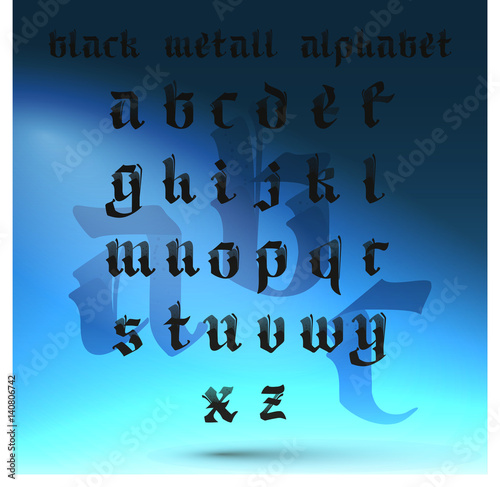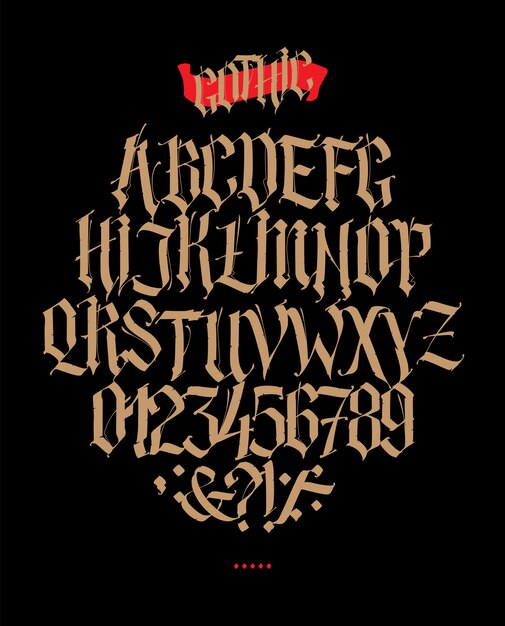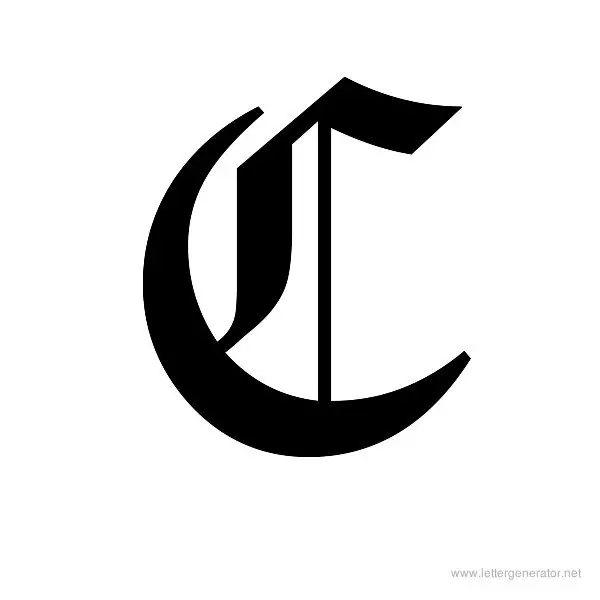
These calligraphy templates come in high resolution A4 pdf format Portable Document Format Number of calligraphy alphabets. Black letter alphabet is also known as the Gothic script or Old English script.
Calligraphy gothic font alphabet. Each image provides all the letters from A to Z. Looking for Gothic Calligraphy fonts. Blackstone Dolbey Germania Caxton Initials Munich Fraktur and 95 more with many lowercases numerals and punctuation marks.
Gothic Calligraphy Lowercase A. This impressive collection features 100 complete and royalty-free alphabets of Old English and Gothic typefaces. Gothic Calligraphy Letter Z.
And search more of iStocks library of royalty-free vector art that features Alphabet graphics available for quick and easy download. Download this Full Latin Alphabet In The Gothic Style Letters And Symbols On A Blue Background Calligraphy And Lettering Medieval Latin Letters Elegant Font For Tattoo All Letters Are Separate vector illustration now. Back letter is a style of the alphabet in calligraphy that was used to manuscript books and chronicles between the 12 th and 20 th century.
Calligraphy is an ancient writing technique using flat edged pens to create artistic lettering using thick and thin lines depending on the direction of the stroke. Black-letter Shadow Gothic Tattoo and Bold. Gothic Calligraphy Letter X.
One might also know it as Textura or Gothic minuscule. The height of calligraphy was reached in the middle age where monks developed the narrow writing style called gothic allowing more words to fit on a single line as paper was expensive at the time. See more ideas about calligraphy fonts alphabet calligraphy fonts fonts alphabet.
The old-style serifs have their origin in broad-nib calligraphyOld-style type is characterized by a lack of differences between thick and thin lines. Gothic Lettering Karens Whimsy. Gothic Calligraphy Lowercase Letters Set.
Calligraphy is an ancient writing technique using flat edged pens to create artistic lettering using thick and thin lines depending on the direction of the stroke. Here are six different styles of Gothic Lettering published in 1918 by JM. Gothic Calligraphy Letter Y.